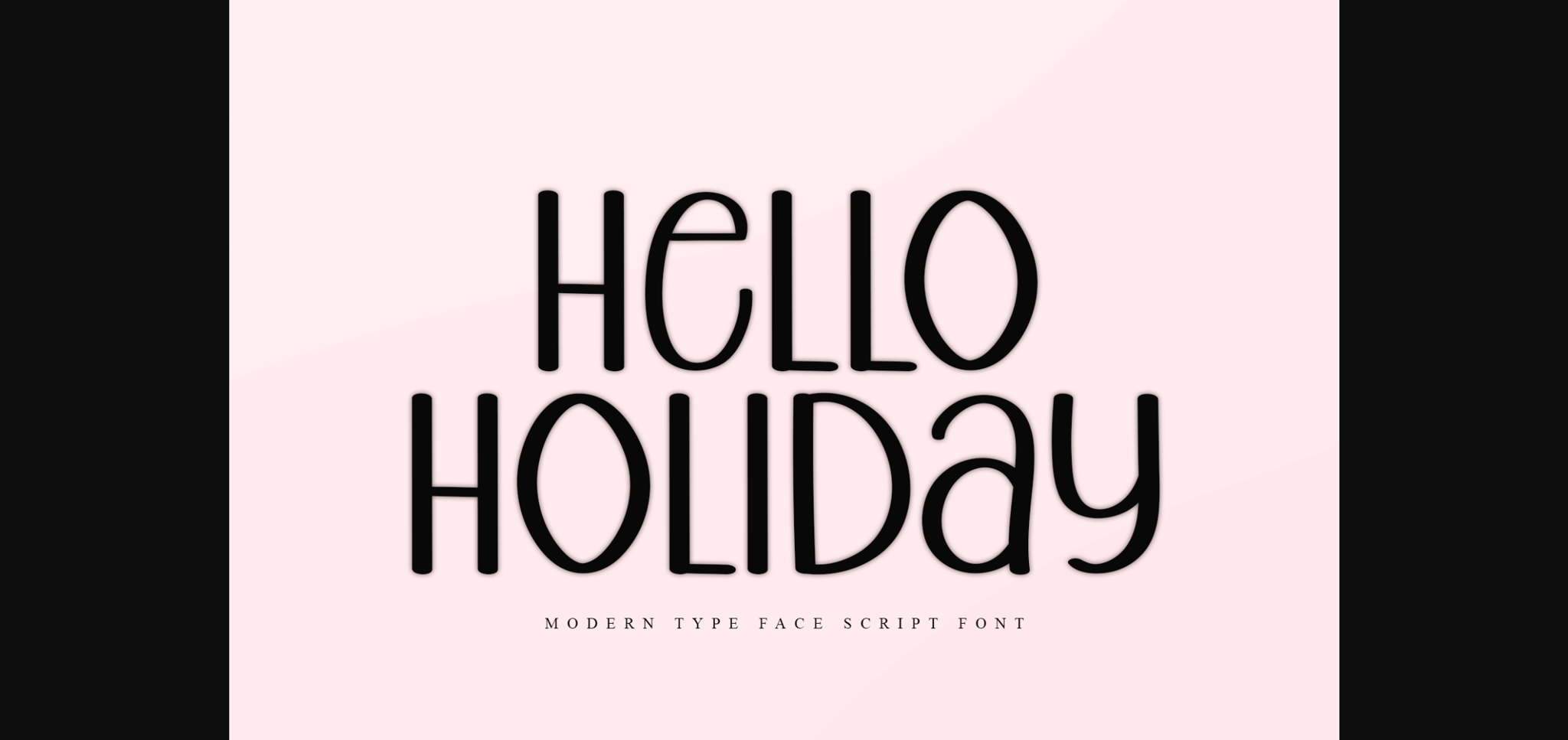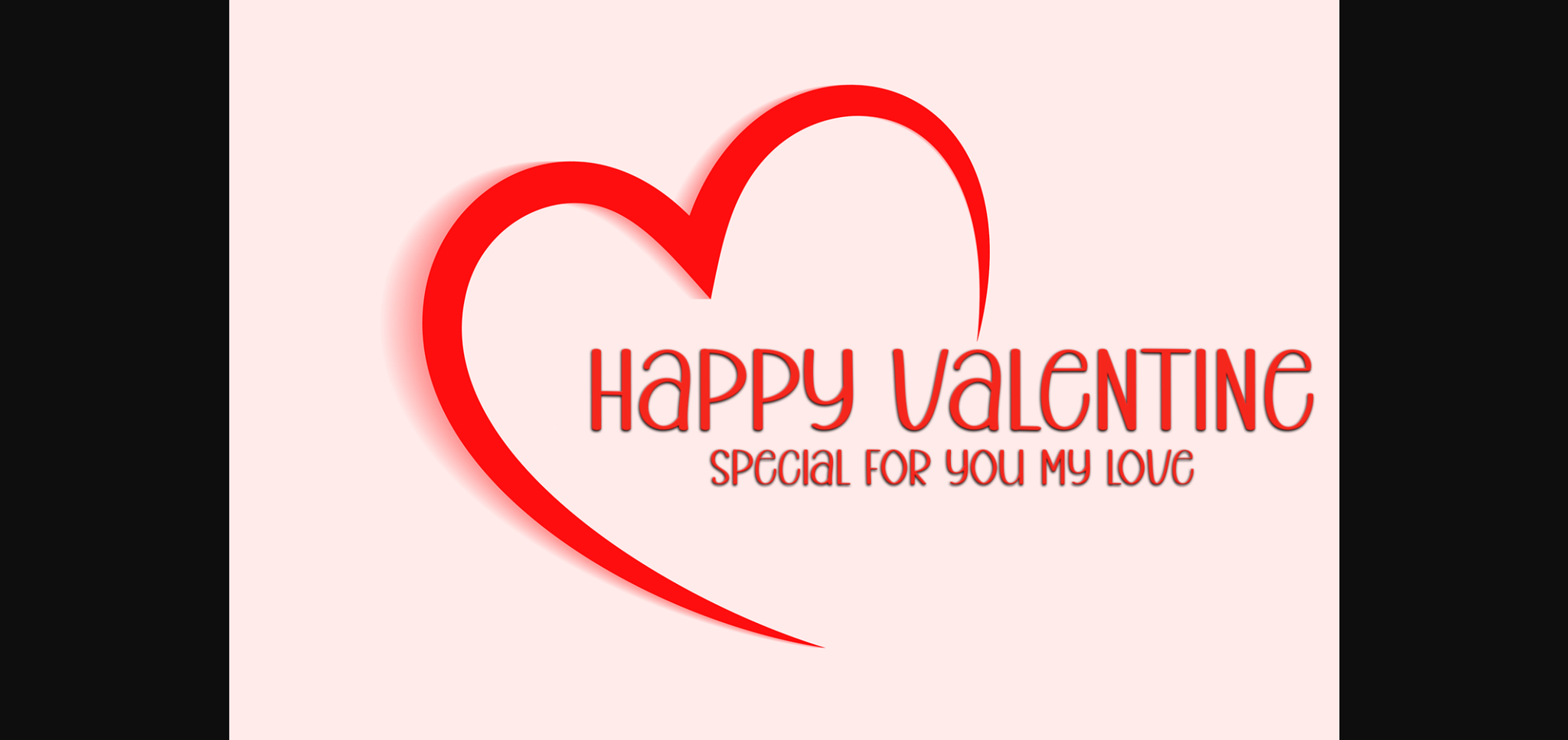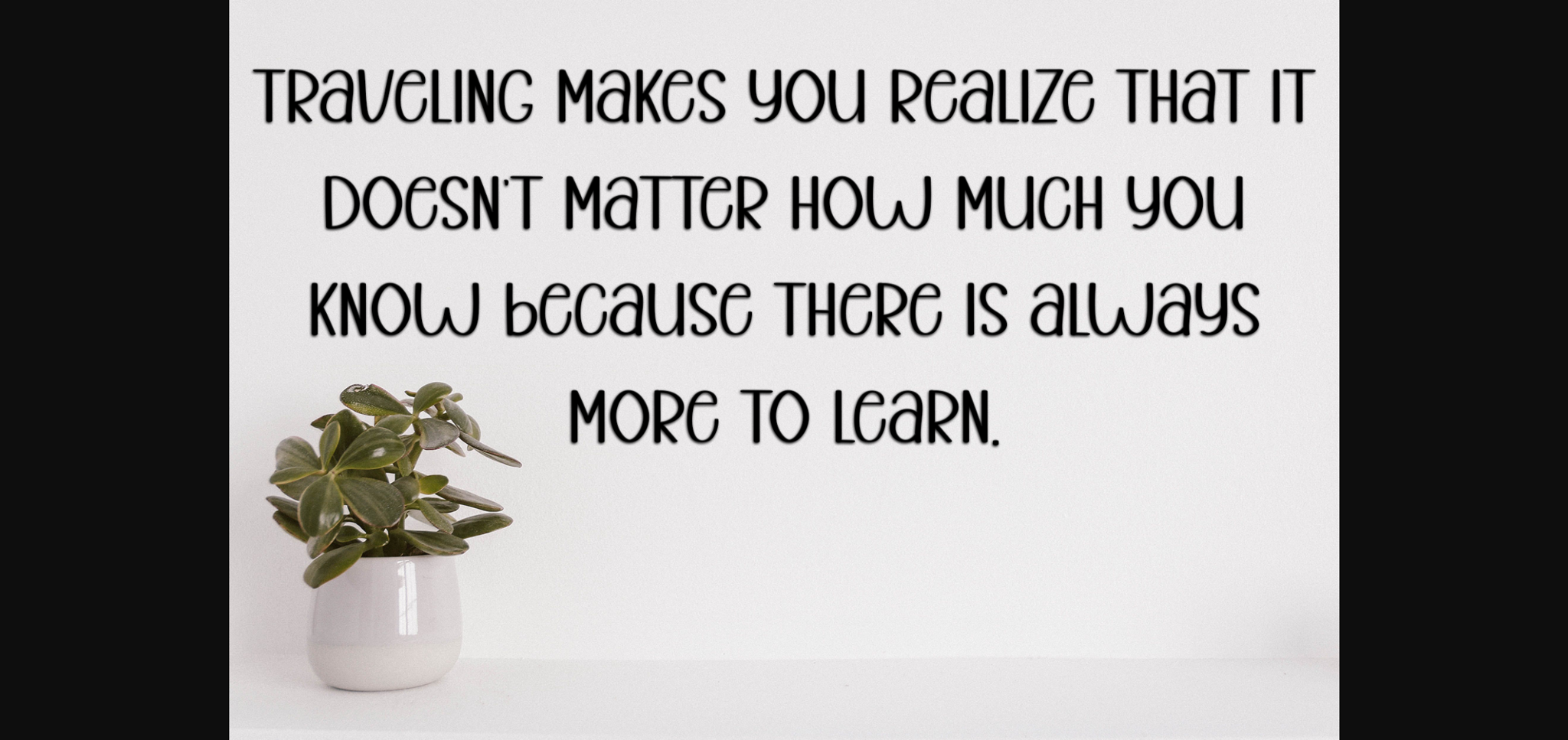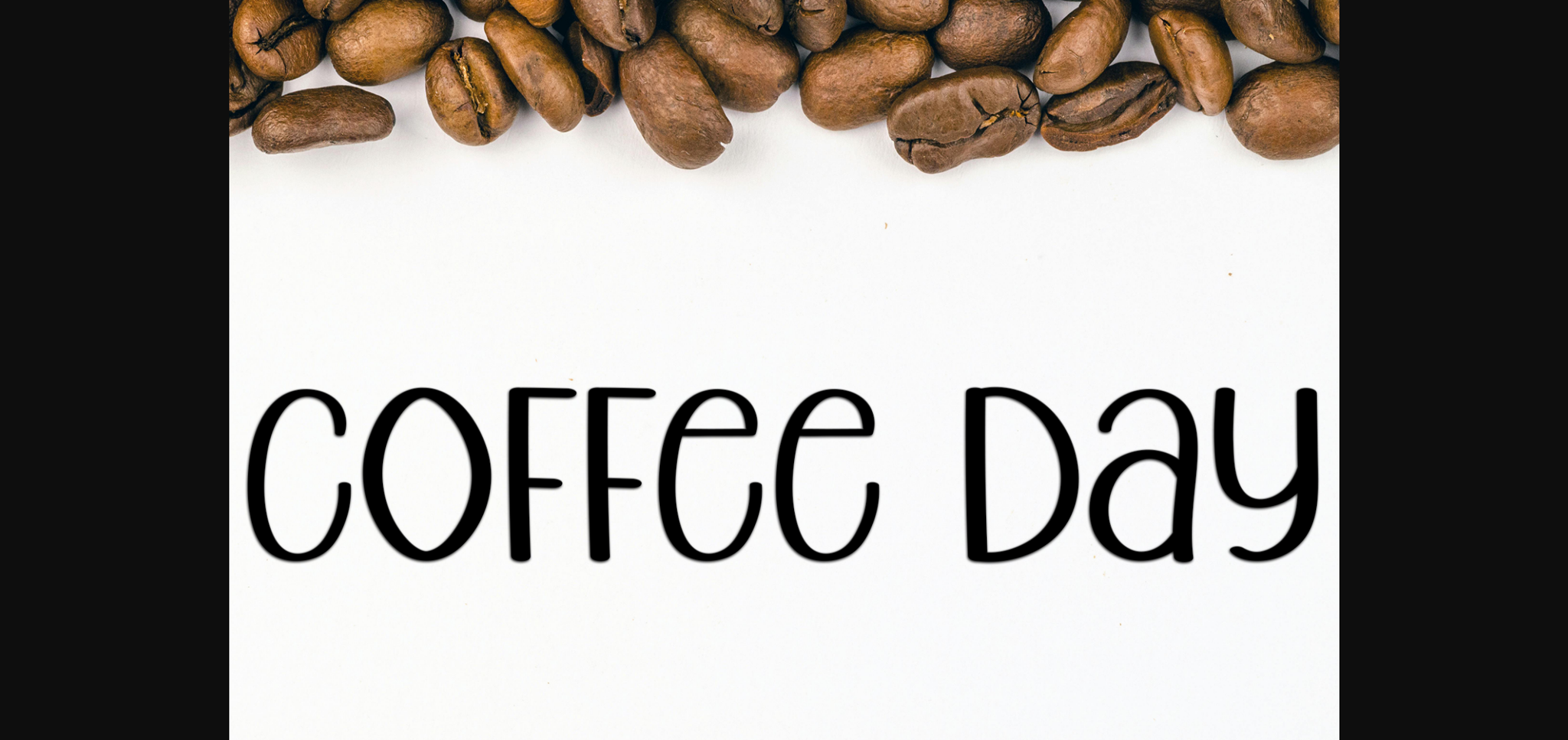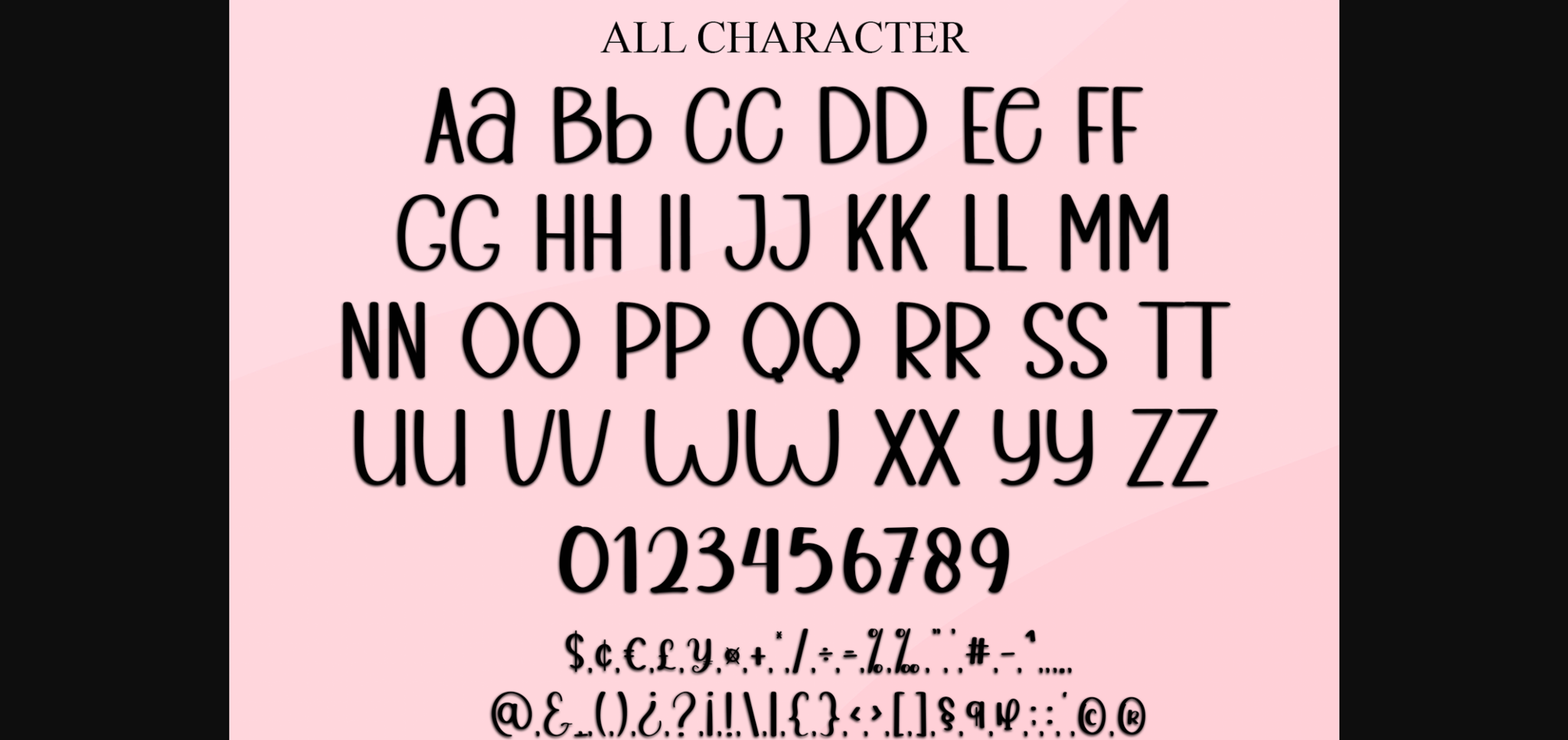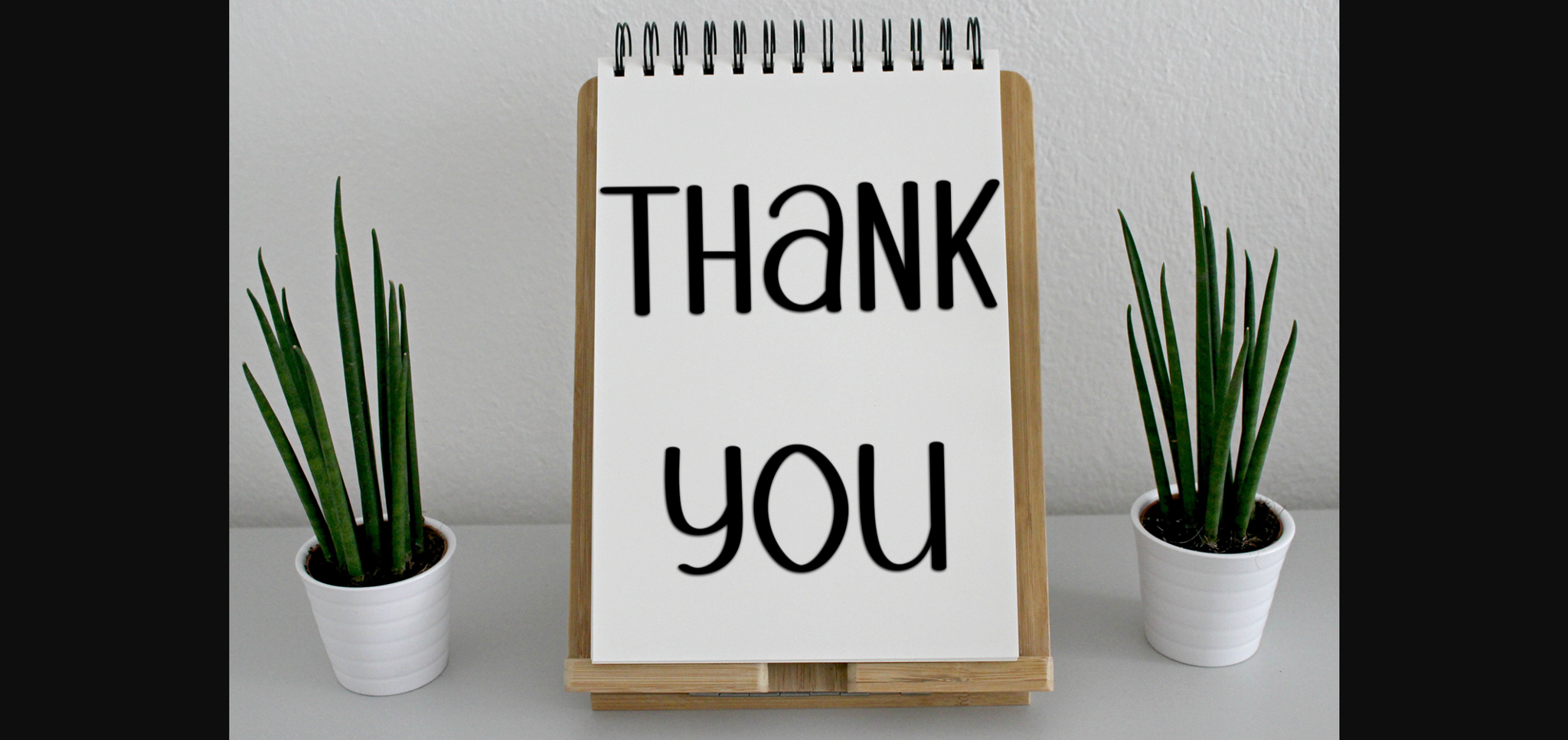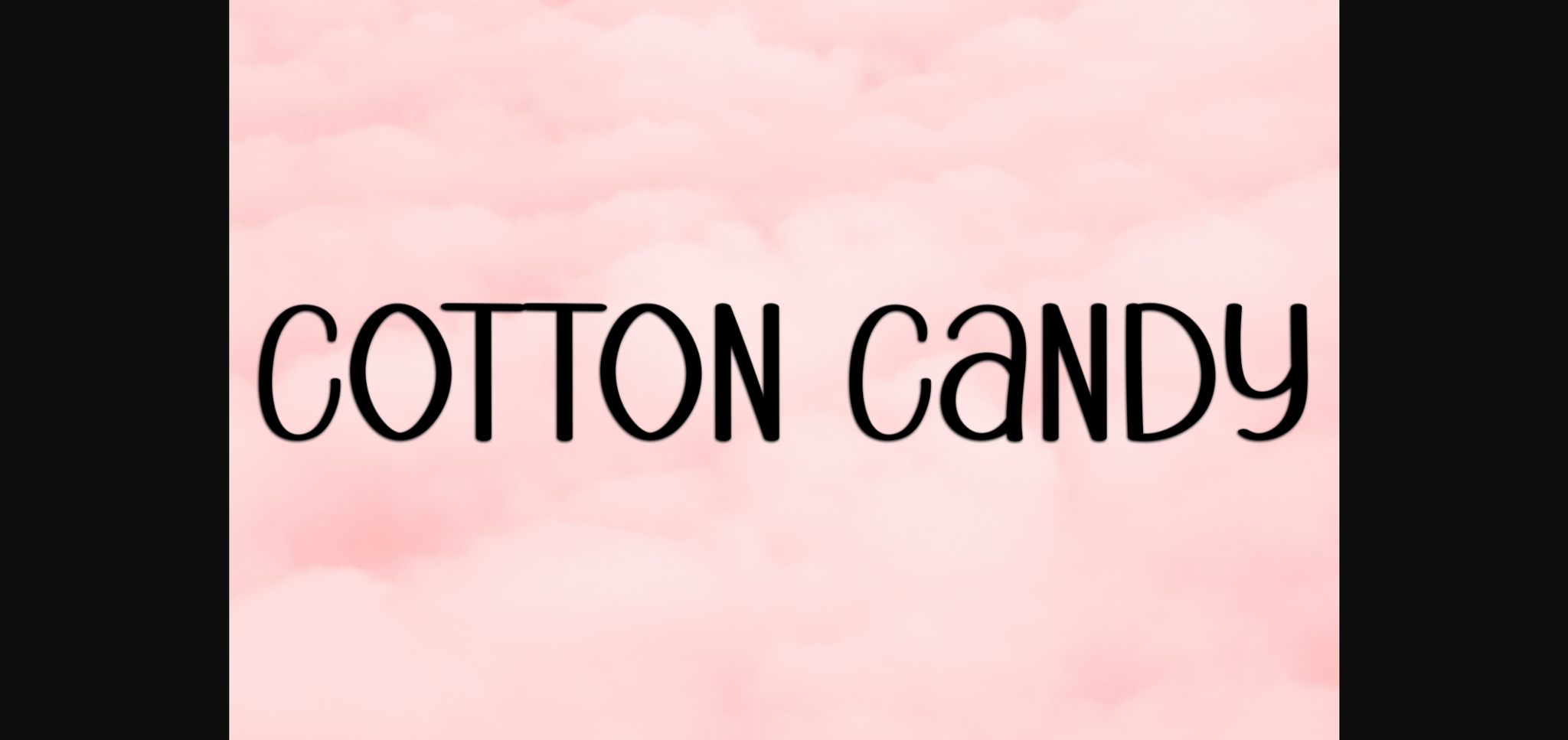
HomeSans Serif FontsHello Holiday Font Sans Serif Fonts Hello Holiday Font FacebookXPinterestWhatsApp 1 of 9 ... Hello Holiday Font Poster 2... Hello Holiday Font Poster 3... Hello Holiday Font Poster 4... Hello Holiday Font Poster 5... Hello Holiday Font Poster 6... Hello Holiday Font Poster 7... Hello Holiday Font Poster 8... Hello Holiday Font Poster 9... About Hello Holiday Font Hello Holiday is a sweet and friendly sans-serif font. Fresh and casual, this font is ideal for writing wedding invitations, cards, or any other design that might need a lovely touch. DOWNLOAD NOW People also explored Boho Font Sunflower Font Konzerban Font MFC Aldercott Monogram Texas Professional Font Quasar Soft Childish Font String Font Shelma and Hugie Font 317 0 TagsHello Holiday Font Previous articleLemontea FontNext articleMorning Holiday Font LEAVE A REPLY Cancel reply Comment: Please enter your comment! Name:* Please enter your name here Email:* You have entered an incorrect email address! Please enter your email address here Website: Save my name, email, and website in this browser for the next time I comment. Personal Use Free Squariess Personal Use Free Read more about this font Wadjet Personal Use Free Read more about this font Foo Personal Use Free Read more about this font Kids Toys Personal Use Free Read more about this font BLOG Free vs Paid Fonts: Why Investing in Premium Fonts Is Worth It Free vs Paid Fonts: Why Premium Fonts Are Worth It in 2025 The debate of free vs paid fonts continues in the design world. While... Top 10 Handwritten Fonts That Elevate Your Designs Where to Buy American Fonts Online in 2024 Exploring Font Trends